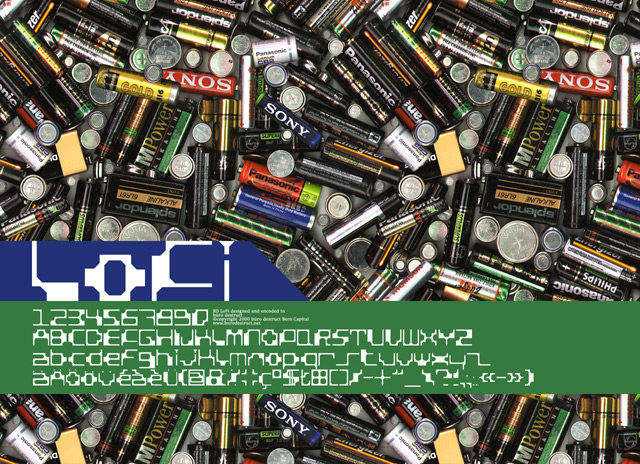
HomePersonal Use FreeBD Lofi Personal Use Free BD Lofi FacebookTwitterPinterestWhatsApp 1 of 1 About BD Lofi Font BD Lofi is a free experimental low-fidelity pixel font. DOWNLOAD NOW People also explored Fallout Modern Calligraphy Font Handmade Font Qualifier Font Snoop City Font Book Signature Font Rubynt Font Cactus Hey Summer Font Unique Girl Font 189 0 TagsBD LofiBD Lofi Font Previous articleBD ConsoleNext articleBD AsciiMax LEAVE A REPLY Cancel reply Comment: Please enter your comment! Name:* Please enter your name here Email:* You have entered an incorrect email address! Please enter your email address here Website: Save my name, email, and website in this browser for the next time I comment. Personal Use Free Charletto Personal Use Free Read more about this font Veronica Personal Use Free Read more about this font DREXS Personal Use Free Read more about this font BD Spinner Personal Use Free Read more about this font BLOG Exploring Font Trends Shaping Communication in the Digital Era Fonts, like all design elements, are subject to trends. They play a crucial role in communicating a brand's personality,... Best Fonts for T-Shirt Design – Top 2025 Picks Elegant Wedding Invitation Fonts – Handwritten & Script Fonts Free Fonts Risk: Why Free Fonts Can Be Dangerous for Designers